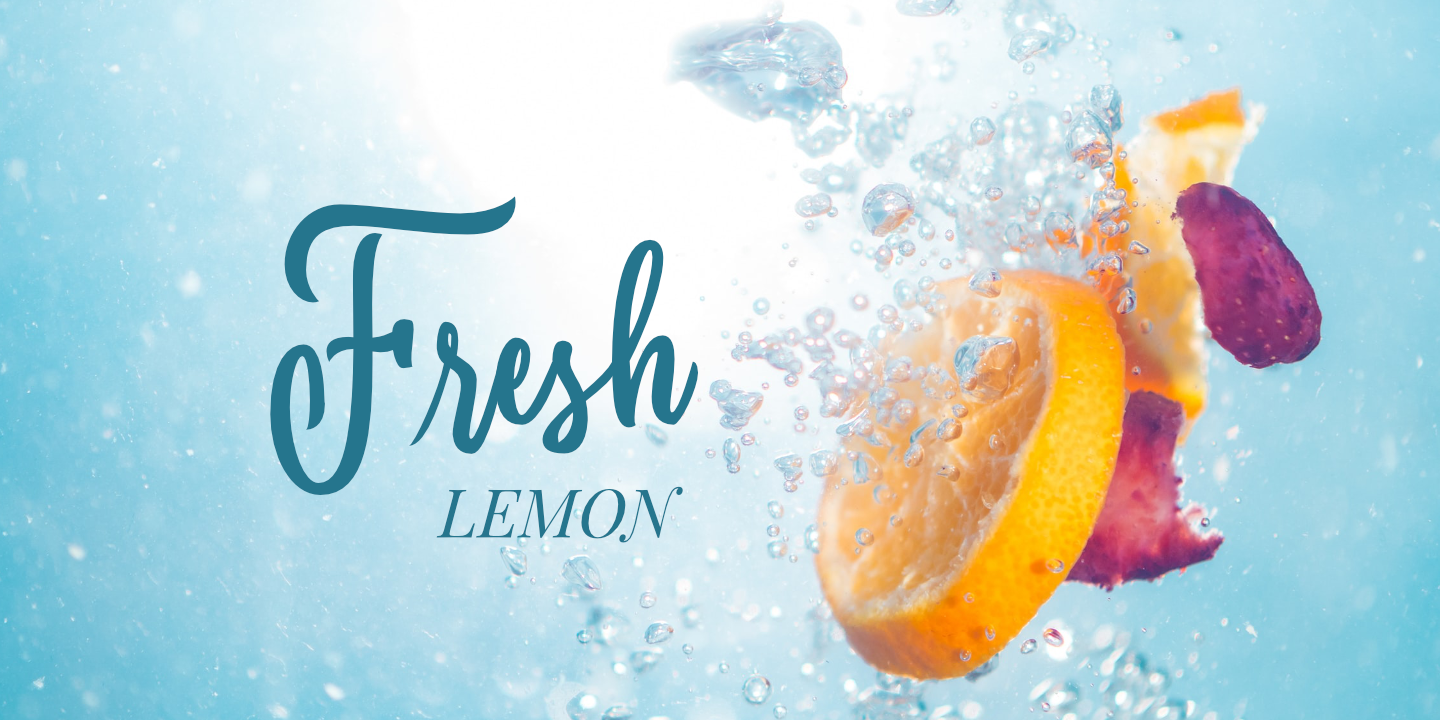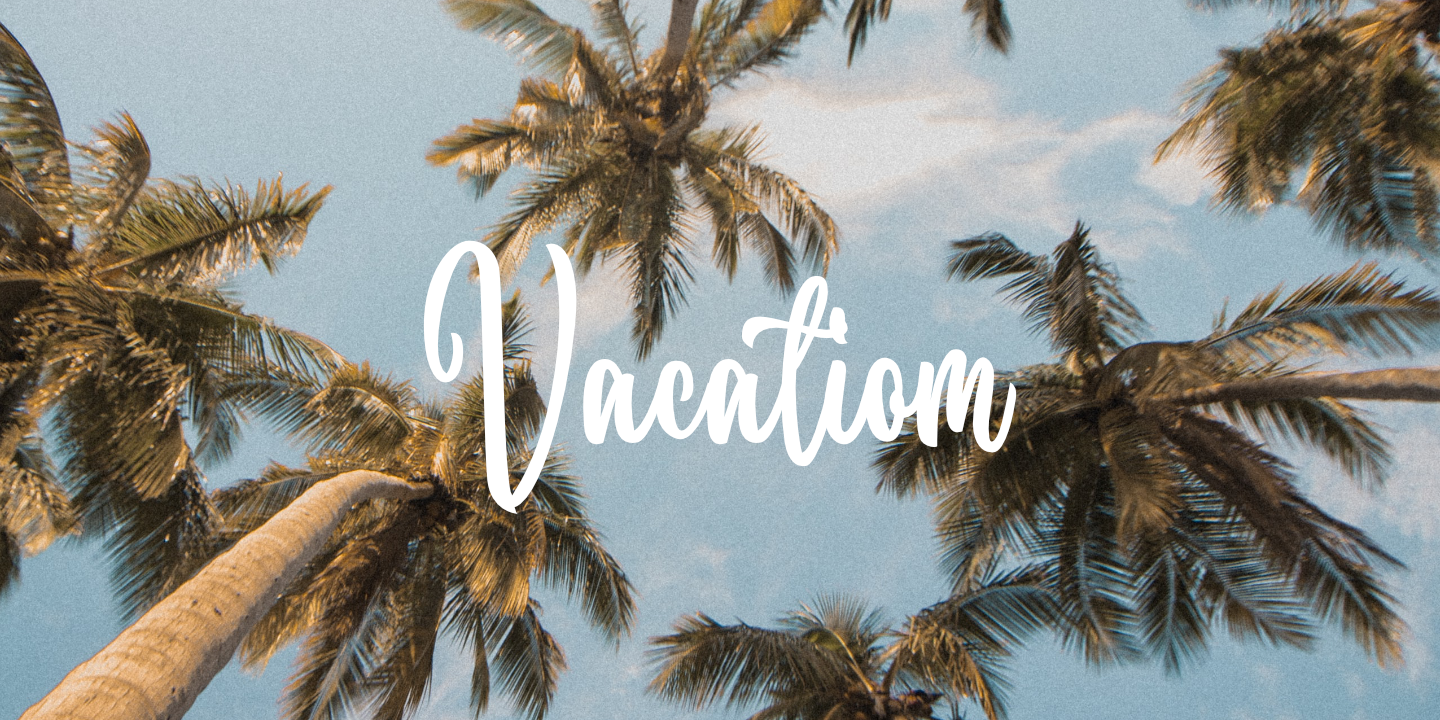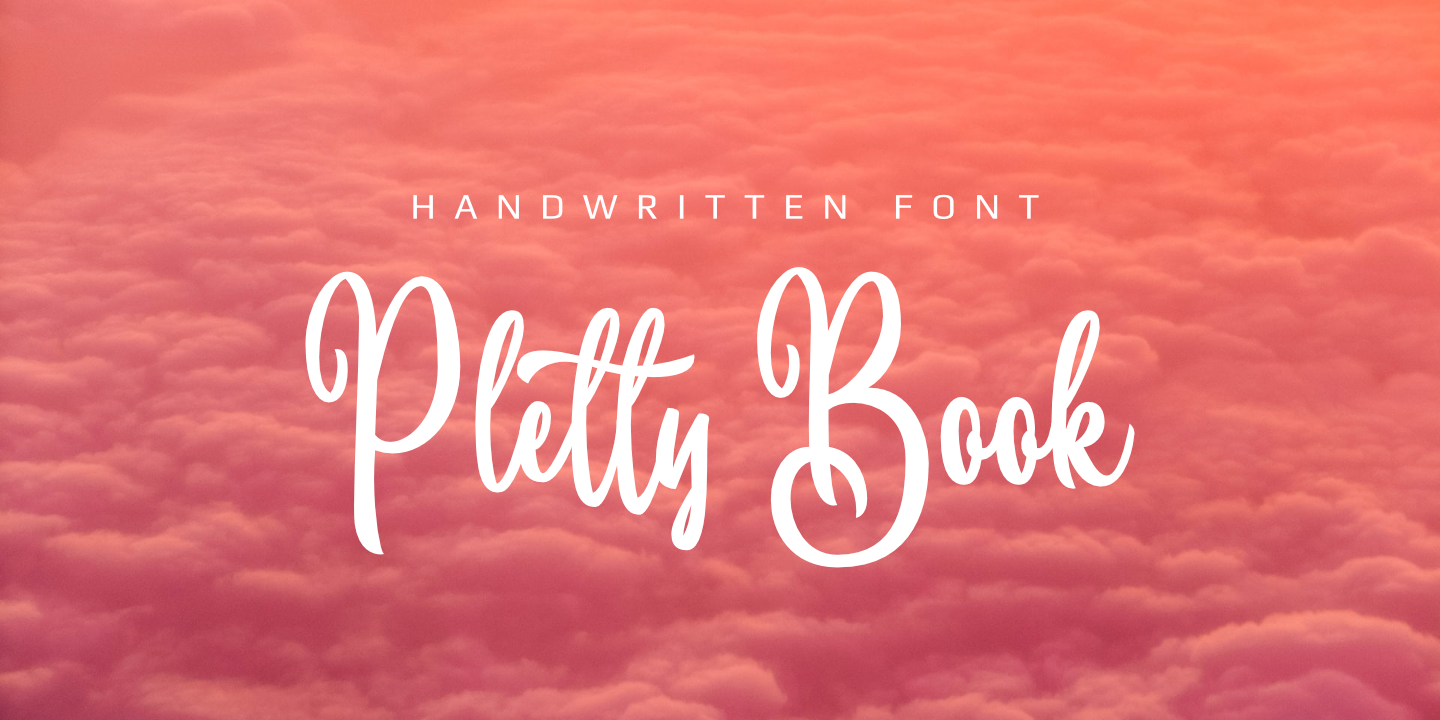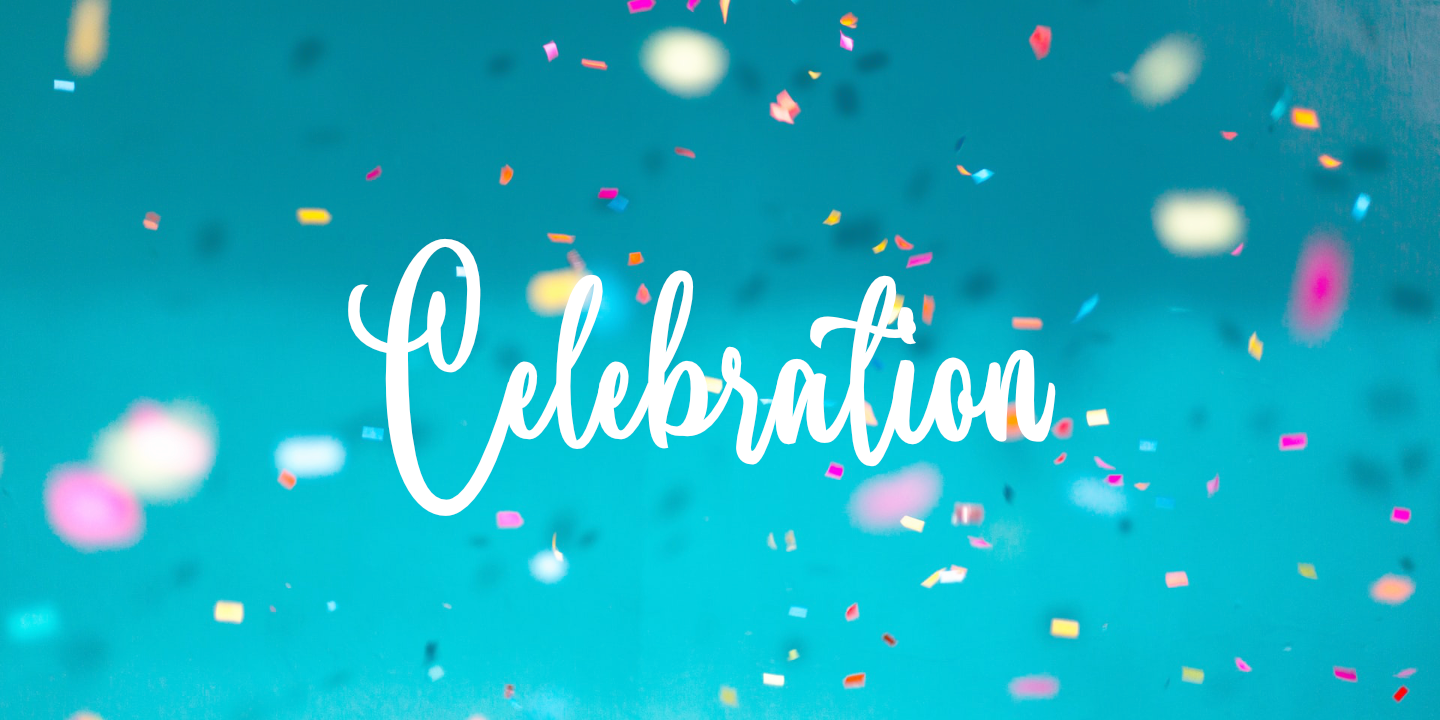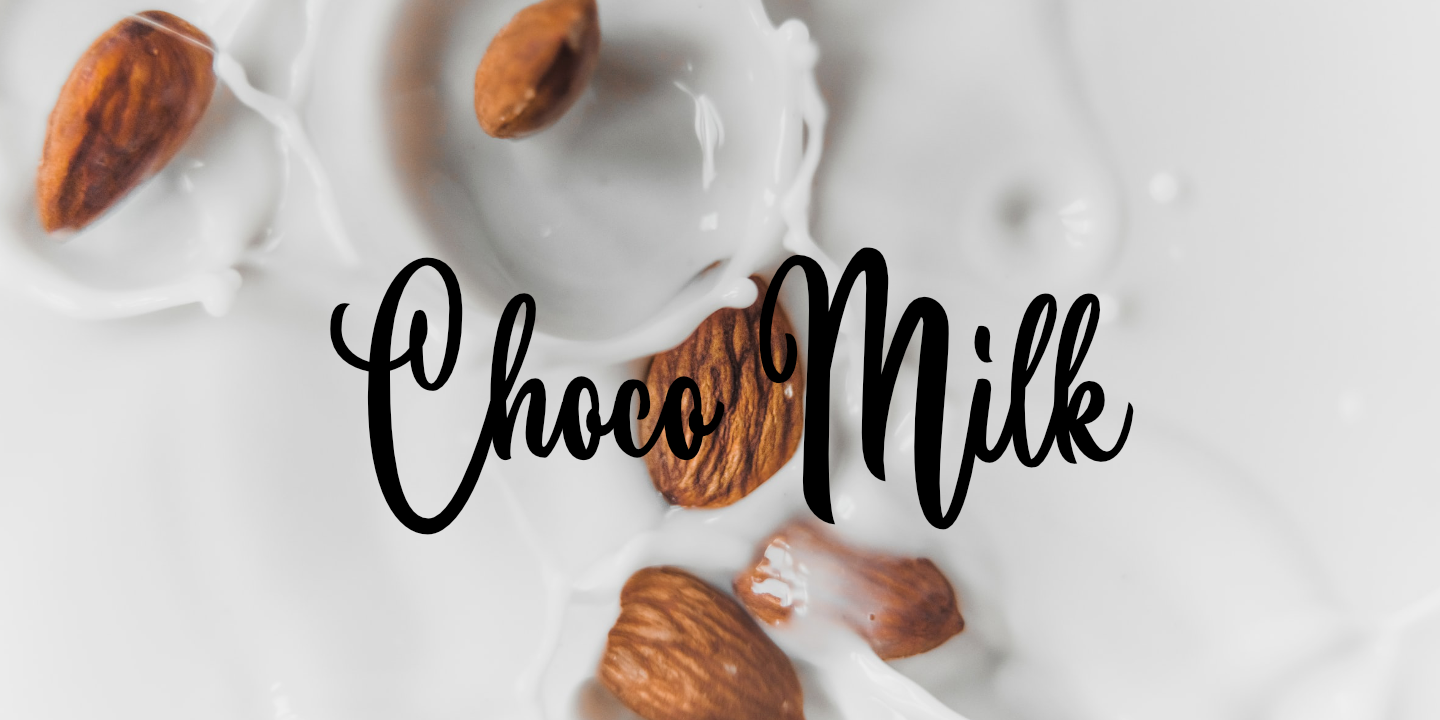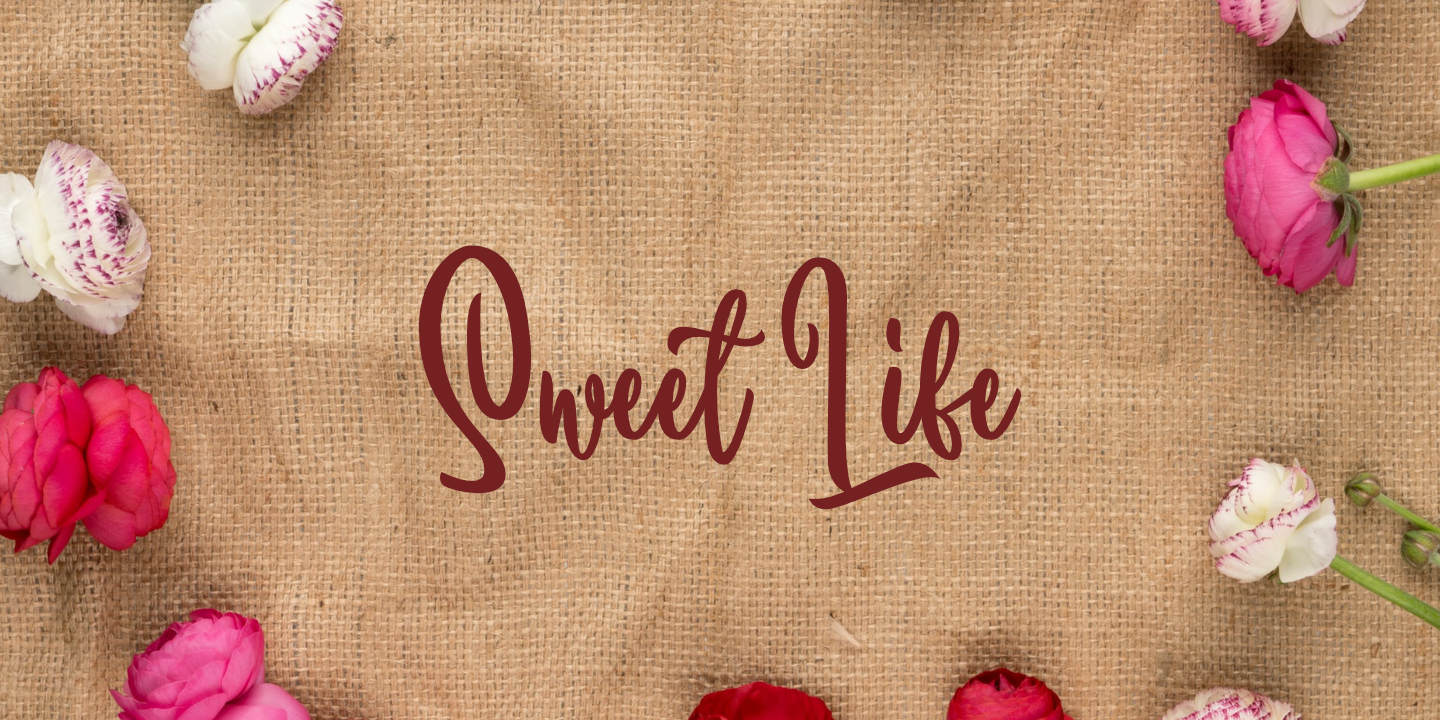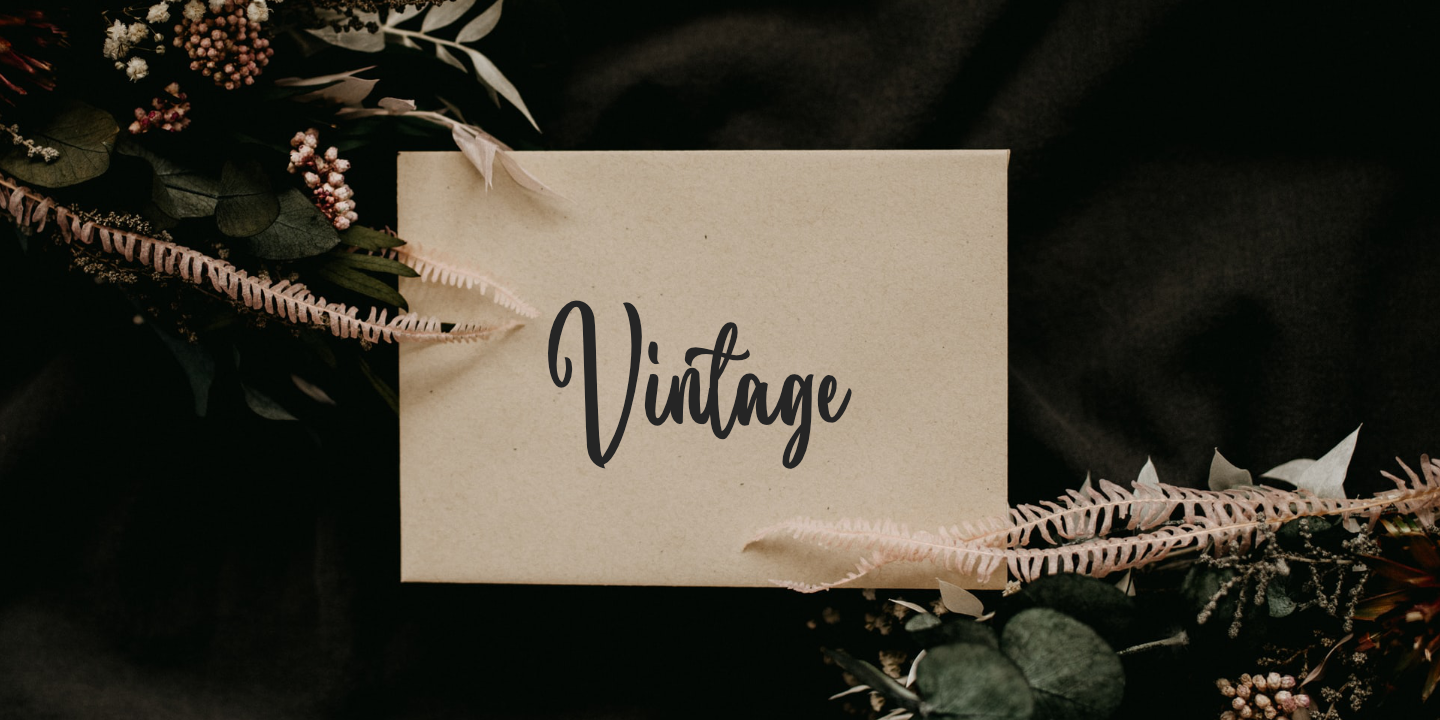
Pletty Book is an elegant script font with a contemporary atmosphere and impeccable form. Not too thin and not too thick, balanced and varied, this font was designed to enhance the beauty of your projects. Pletty Book is PUA encoded which means you can access all of the glyphs and swashes with ease!
Great For branding, logotype (wordmark, lettermark), logo design, header, UI design, and any kind of playful or others projects